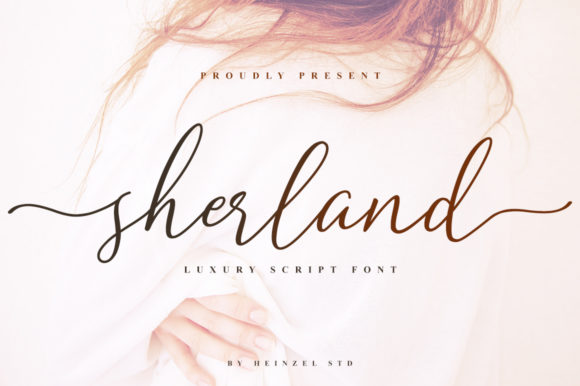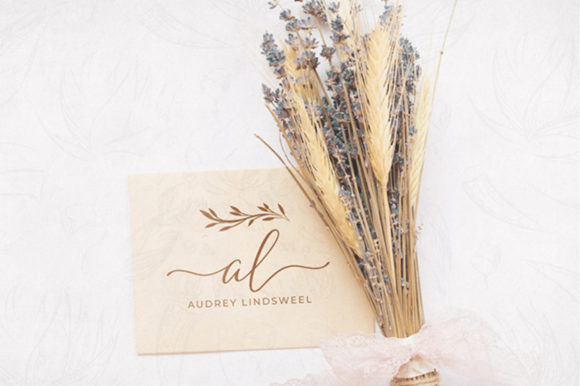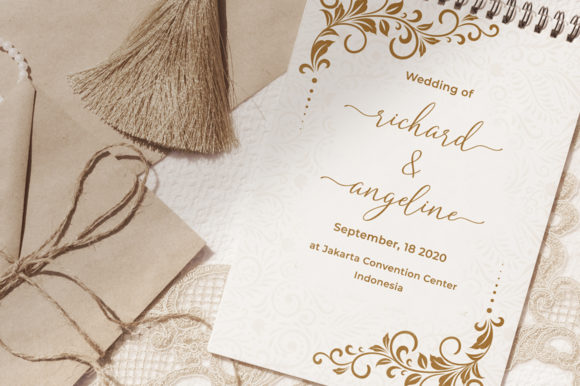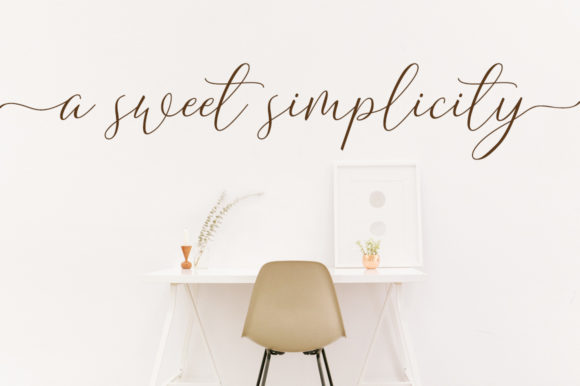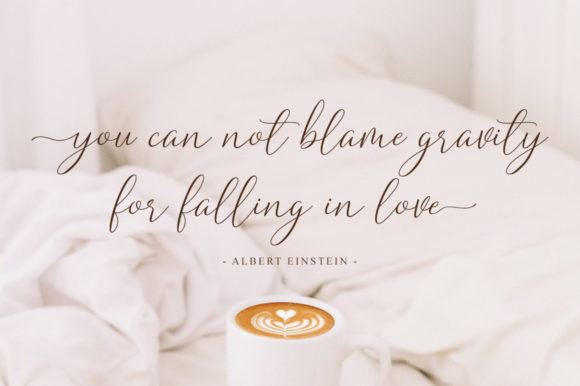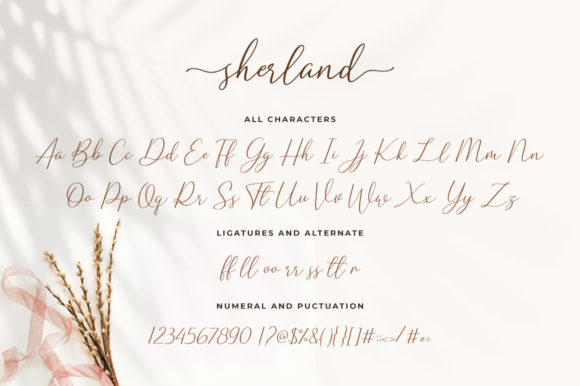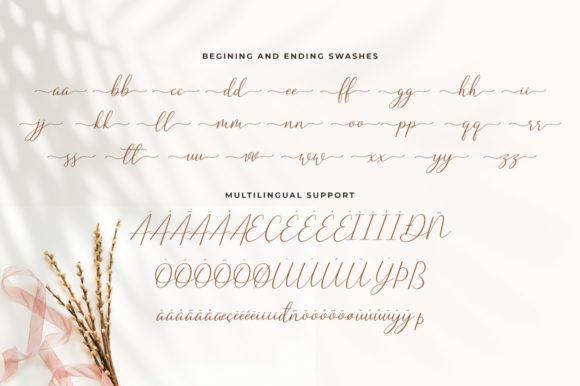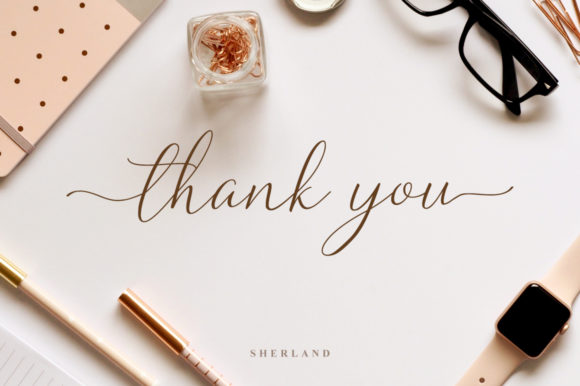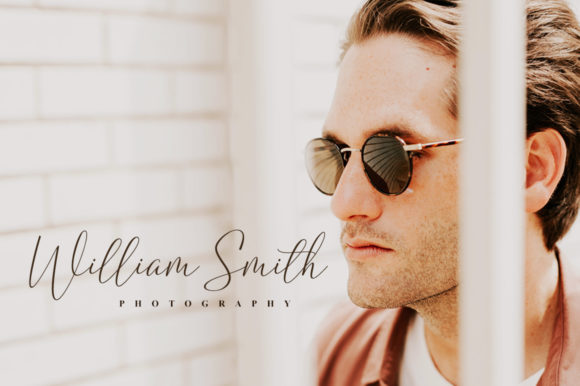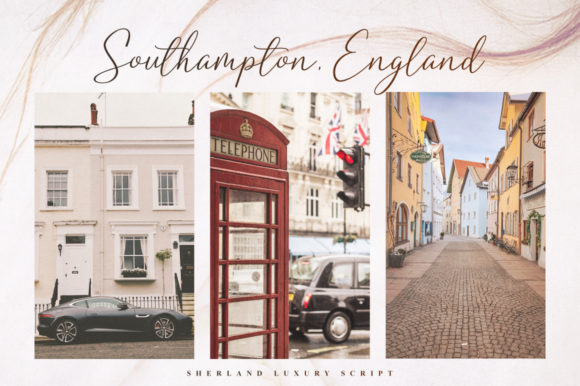
Sherland Font
About Sherland Font
Sherland simplifies elegance into one truly outstanding script font. Fall in love with its authentic feel and use it to create gorgeous wedding invitations, beautiful stationary art, eye-catching social media posts, and cute greeting cards.